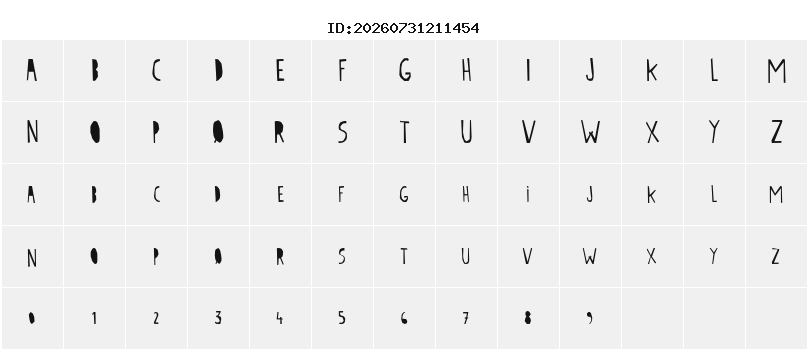
About Le bain au milieu de la fin d'après-midi vers 17:49.ttf
Le bain au milieu de la fin d'après-midi vers 17:49.ttf is a modern, elegant sans-serif font designed for ultimate readability and visual harmony. Perfect for branding, headlines, web design, and print materials.